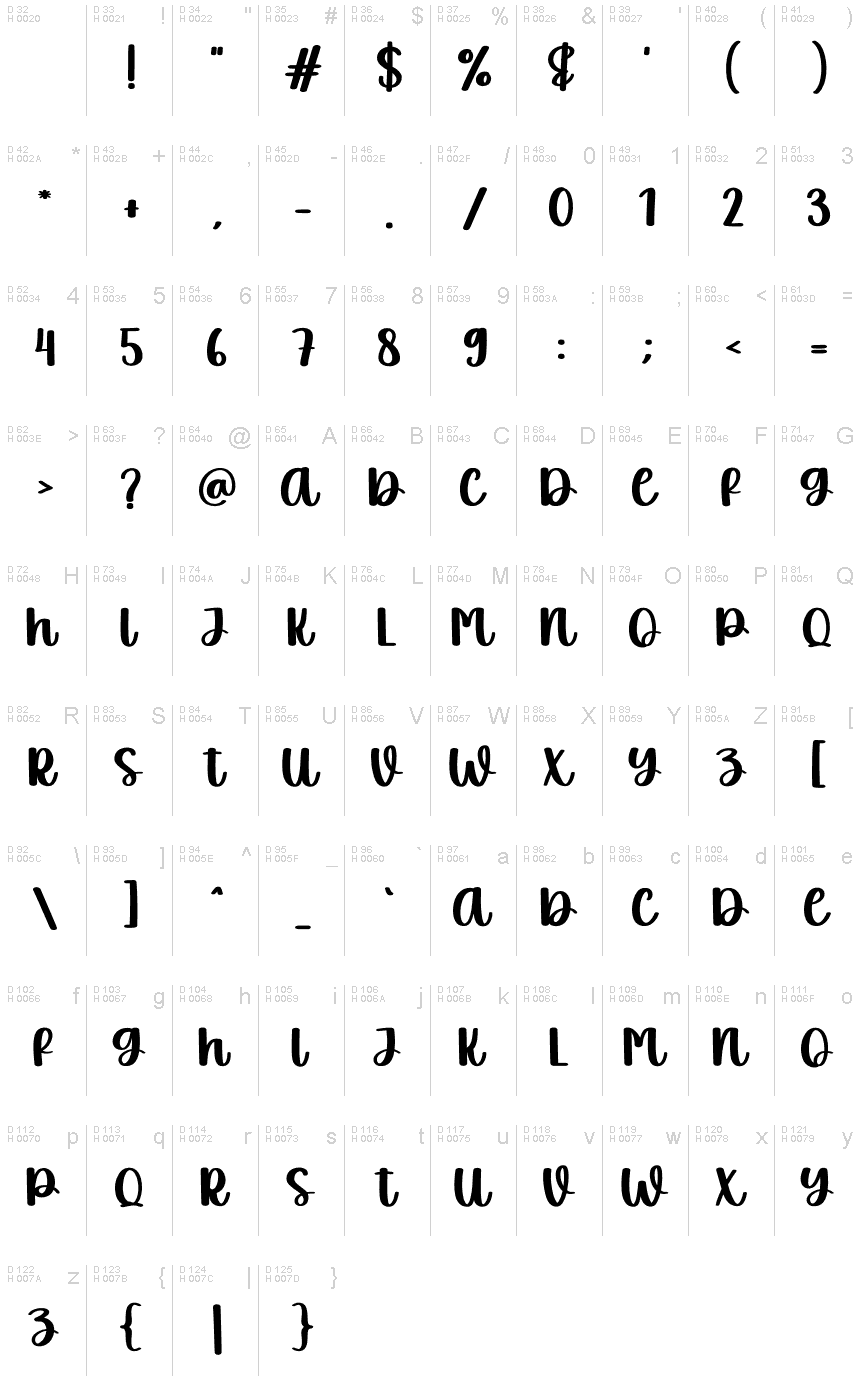
Winter Market
Winter Market, designed by Scratchones, stands out with its bold and fluid handwritten style that captures the essence of an artisanal touch. The font's robust weight and dynamic curves make a confident statement while retaining an intimate and approachable feel. This characteristic blend makes Winter Market a versatile choice for projects that require a personal yet impactful aesthetic.
The font's handwritten quality imbues designs with warmth and originality, making it ideal for branding, product packaging, or promotional materials that aim to create a connection with the audience. Whether it graces the cover of a handcrafted goods catalog or adds charm to seasonal event invitations, Winter Market's distinctive style ensures your message is delivered with both elegance and exuberance.
With its visually engaging design, Winter Market promises to elevate creative endeavors by adding an element of bespoke sophistication that resonates across various mediums and contexts.